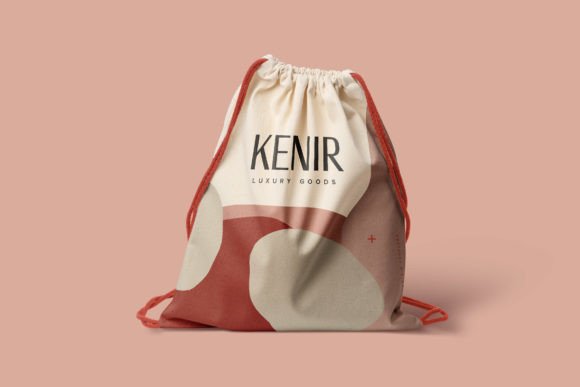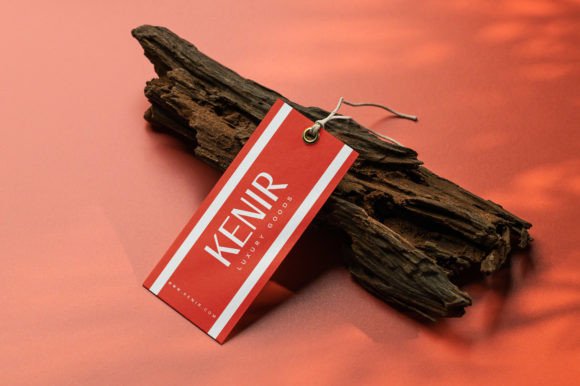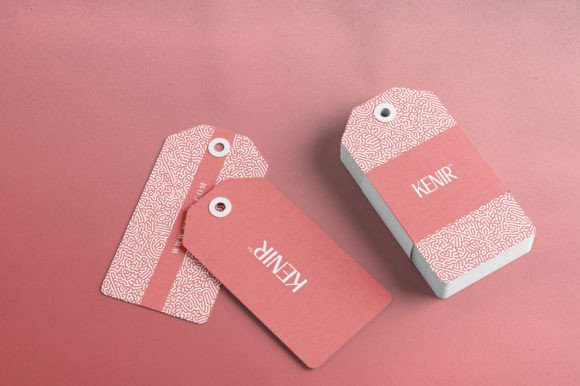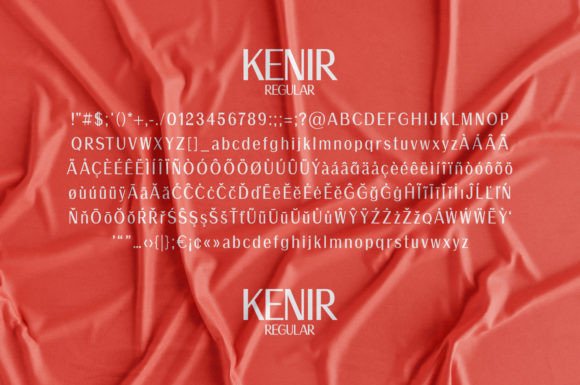
Introduction to Kenir Font
Kenir is a delicate, minimalistic, and elegant sans serif typeface.
It is an incredibly versatile font and for that reason, it can perfectly suit a lot of contexts such as packaging design, cosmetics, business cards, invitations, weddings, social posts, etc .